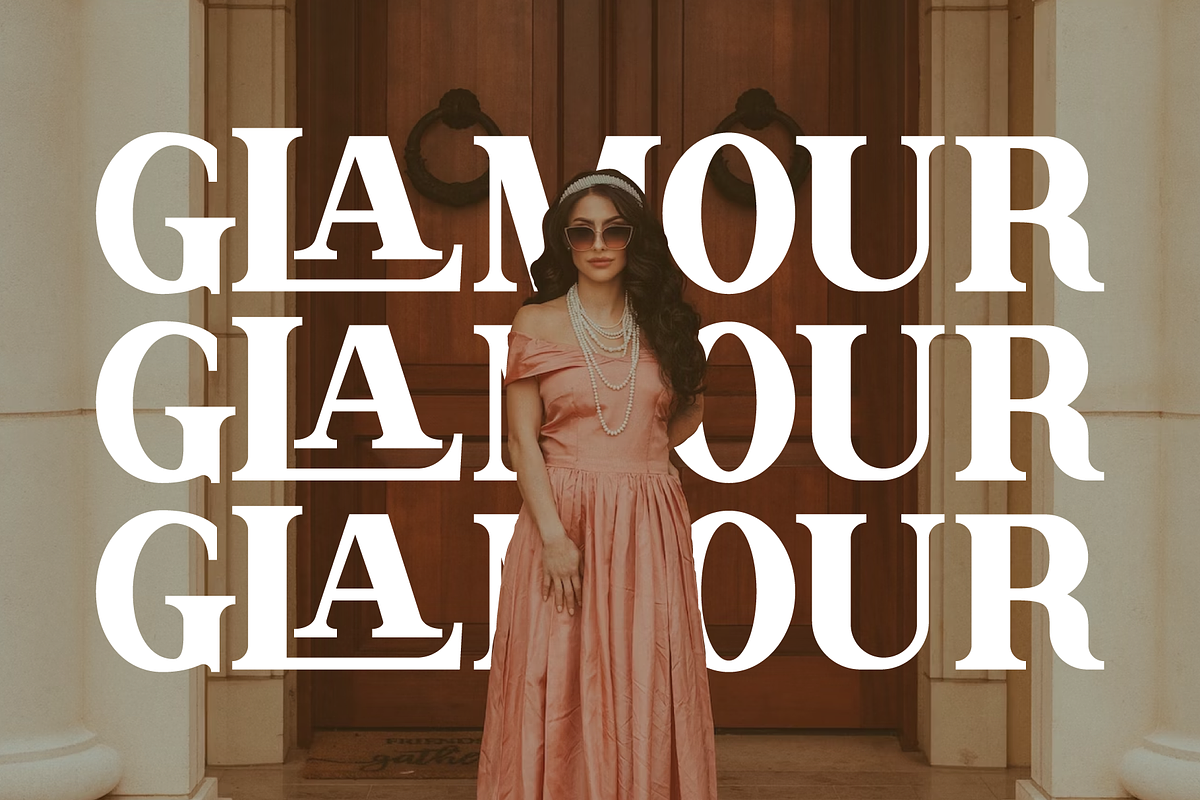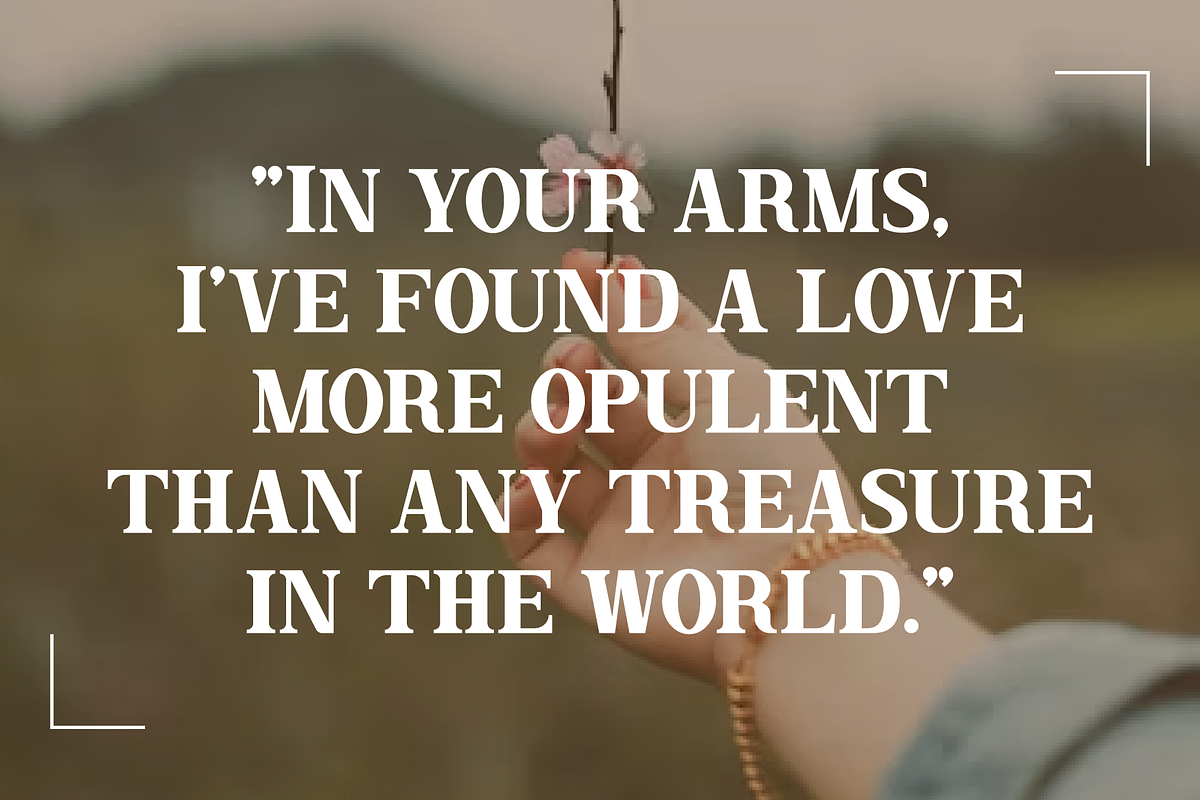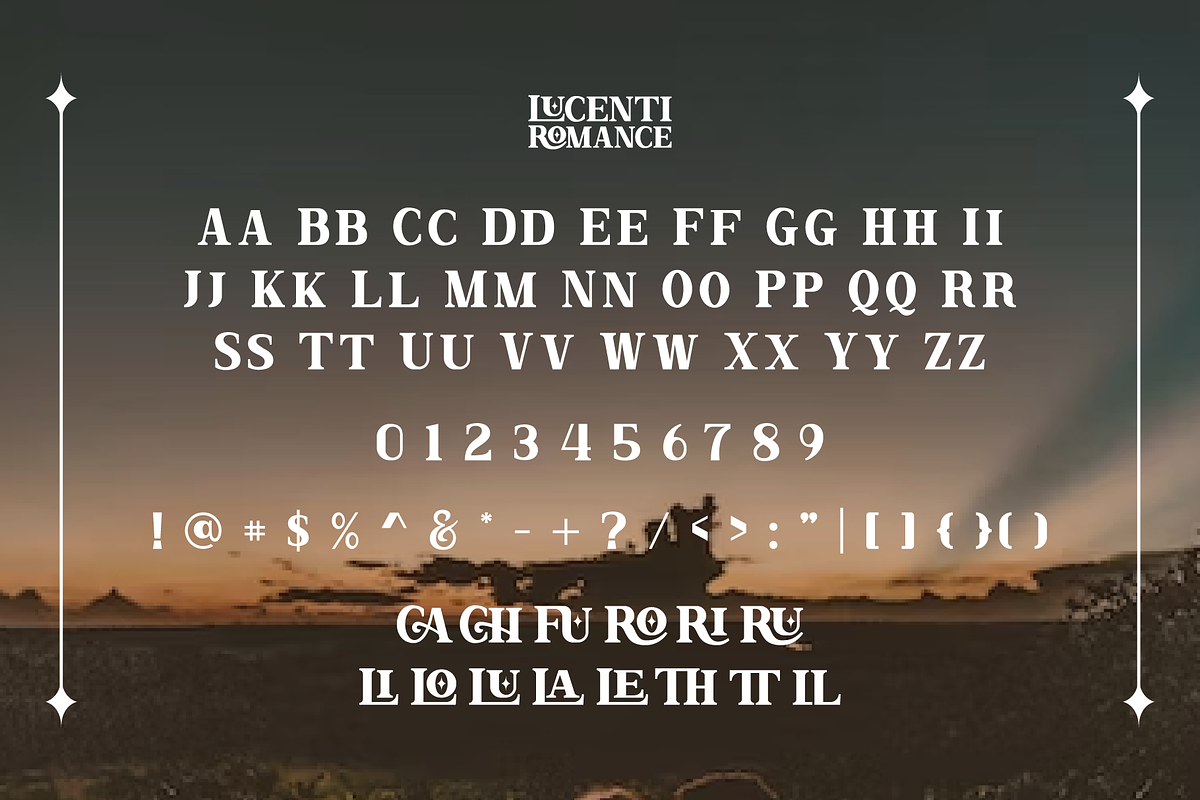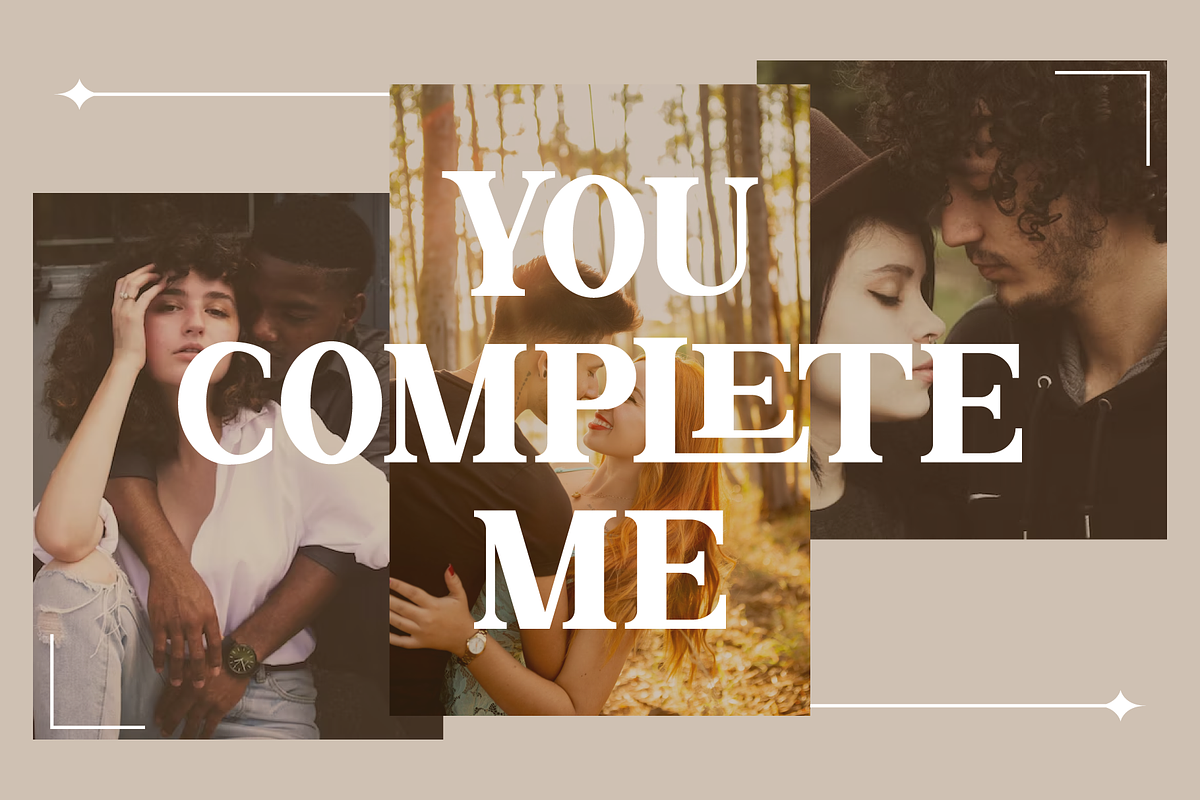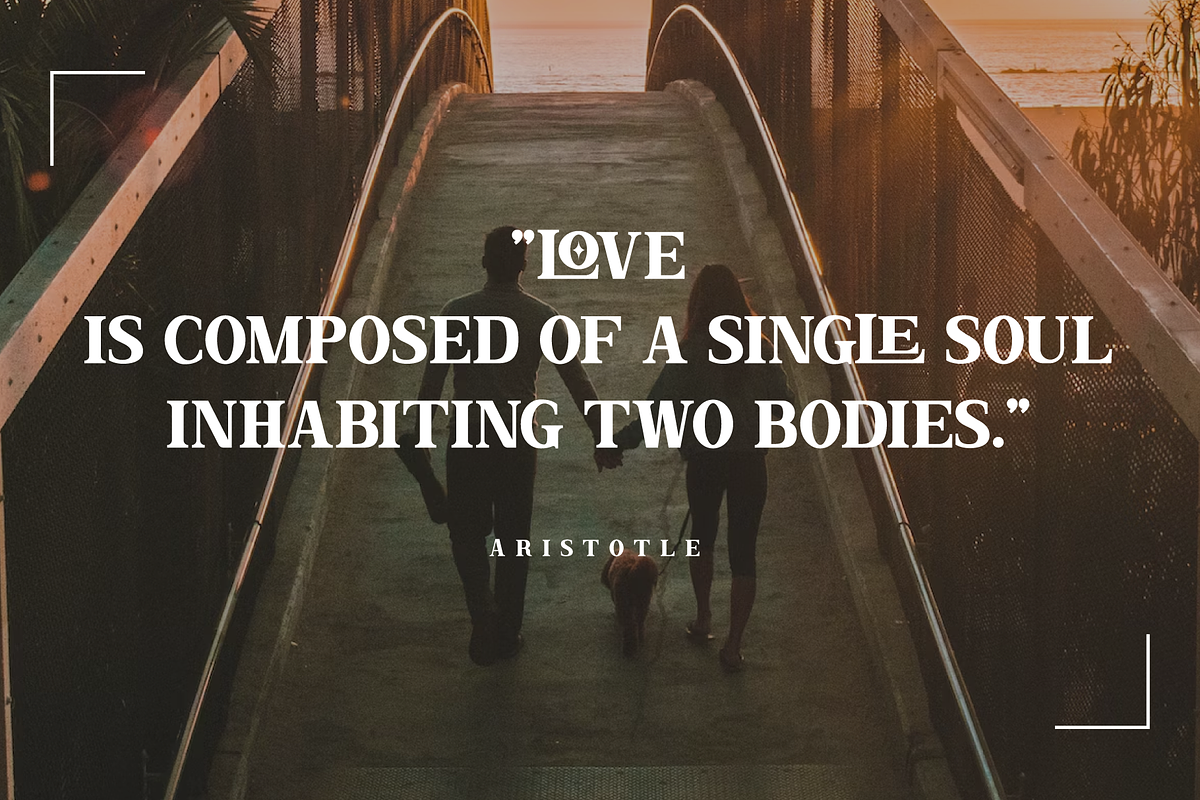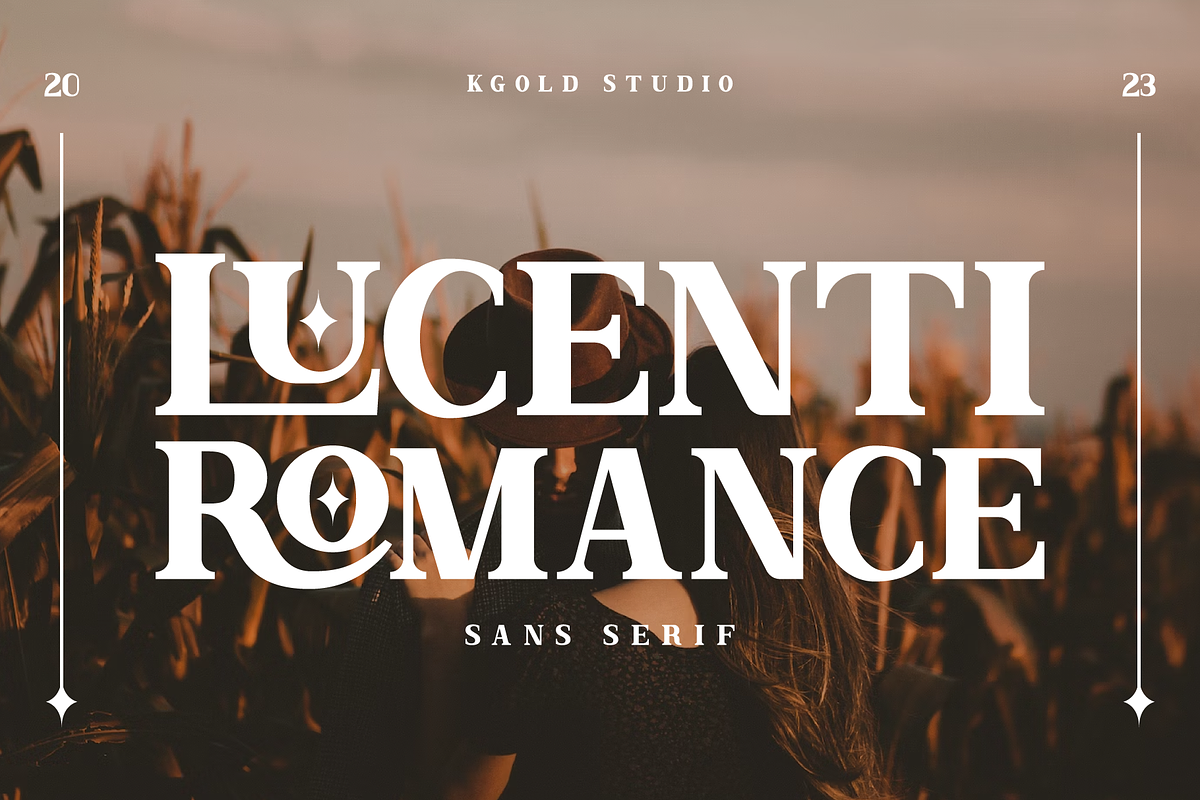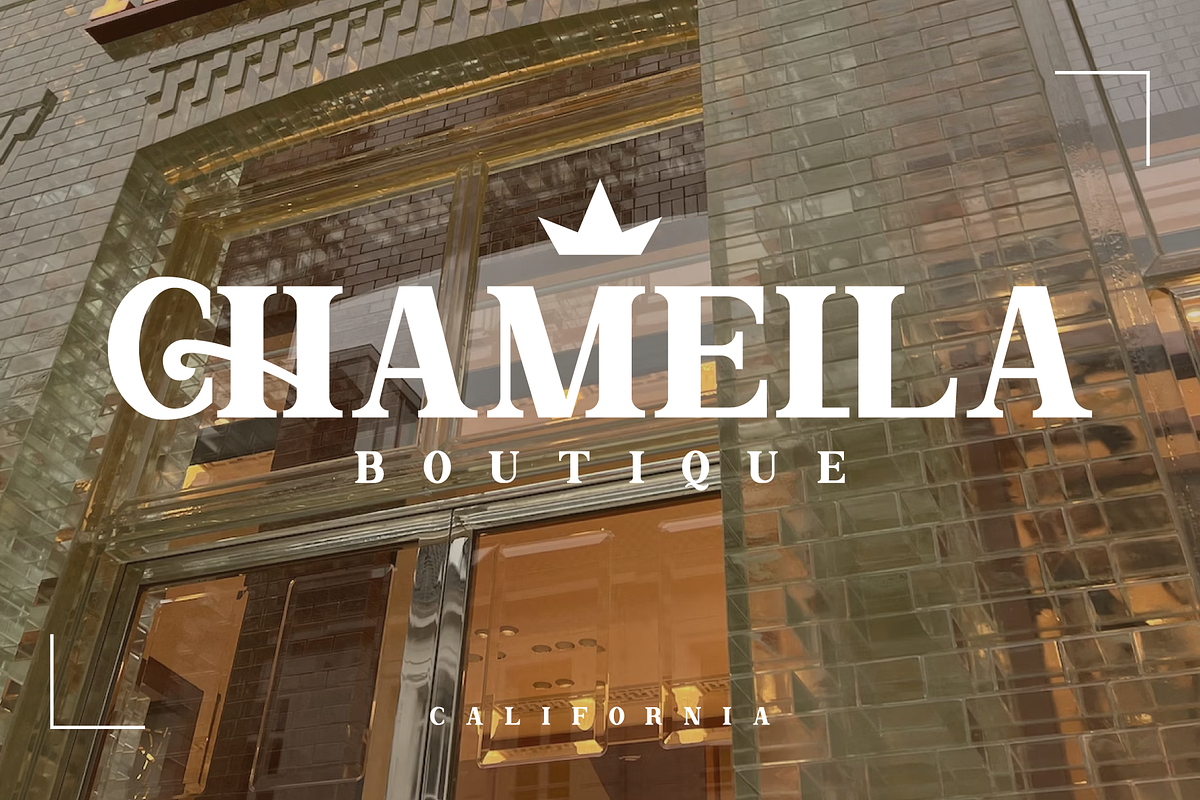
Lucenti Romance
Lucenti Romance Sans Serif Font
Introducing "Lucenti Romance," a luxurious and romantic sans serif font that embodies timeless elegance and passion. This exquisite typeface is meticulously crafted to add a touch of sophistication to your design projects. With its unique blend of mewah and romance, "Lucenti Romance" is the perfect choice for wedding invitations, branding, logos, and more.
Luxurious Elegance: "Lucenti Romance" exudes opulence and grace, making it ideal for projects that demand a touch of luxury.
Romantic Vibes: The font's romantic undertones add a dash of passion to your designs, making it perfect for love-themed projects.
Versatile Usage: This sans serif font is suitable for a wide range of applications, from print to digital media.
Unique Character: "Lucenti Romance" features special ligatures, enhancing the visual appeal and uniqueness of your text.
Distinctive Styling: The font's modern sans serif style ensures legibility while maintaining a refined appearance.
Ideal Usage:
- Logos and branding
- Invitations and greeting cards
- Wedding stationery
- Apparel designs
- Social media posts
- Quote graphics
- Packaging
- Full character set and OpenType features
- Multi-language support
- Special ligatures
Elevate your design projects with the timeless charm of "Lucenti Romance." Whether you're creating wedding invitations, branding, or any design that calls for a luxurious and romantic touch, this font will help you achieve a level of sophistication that captivates your audience.